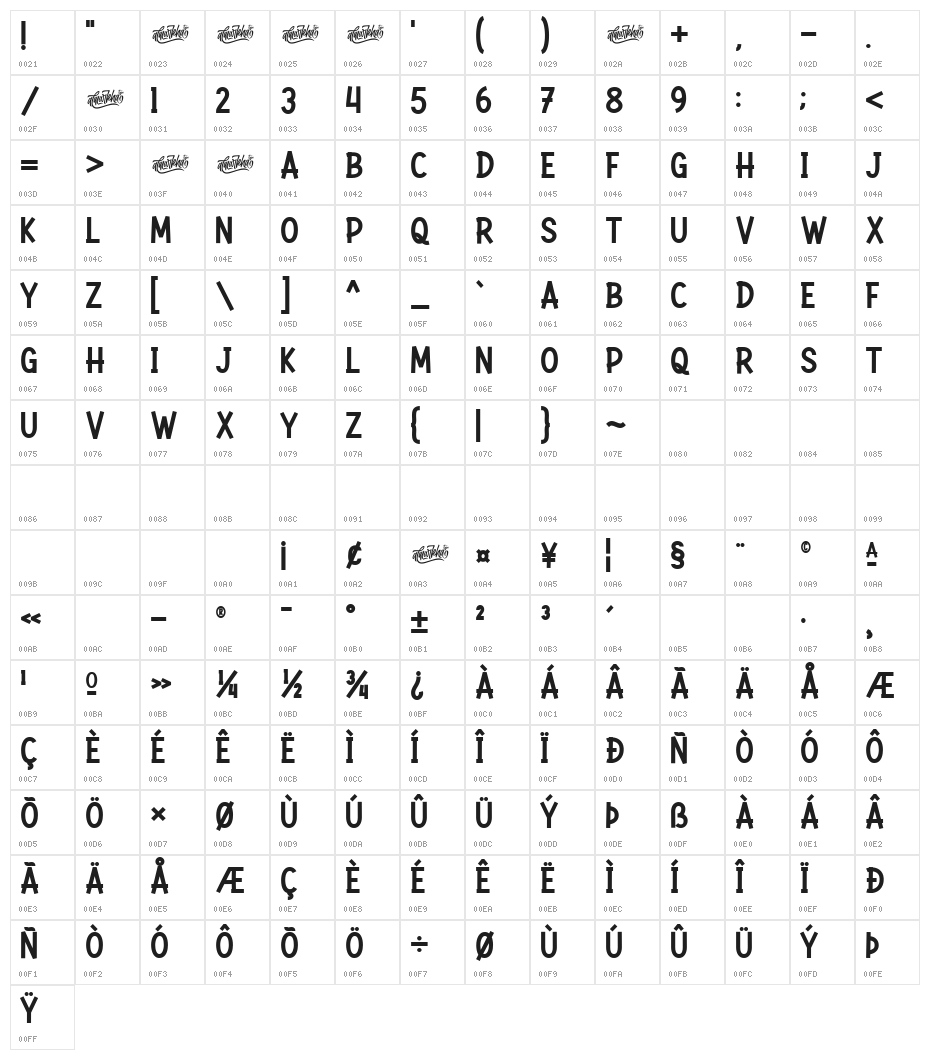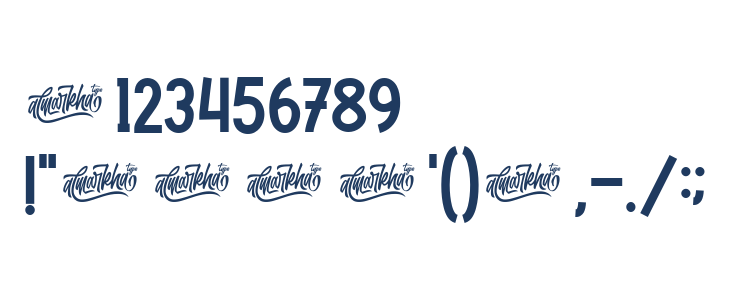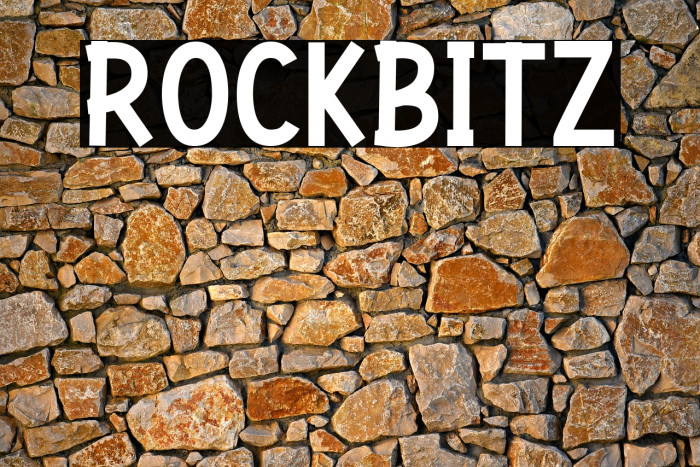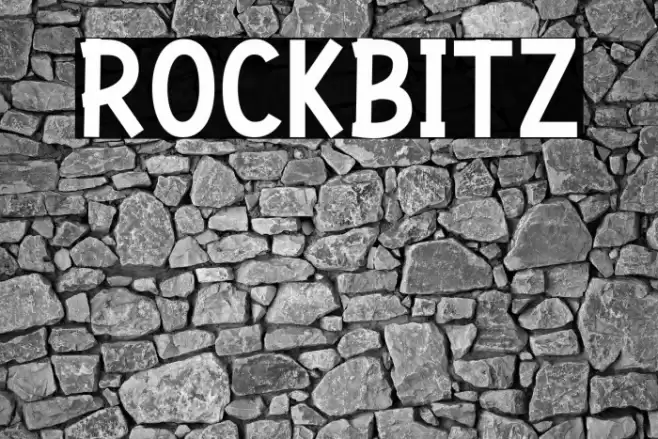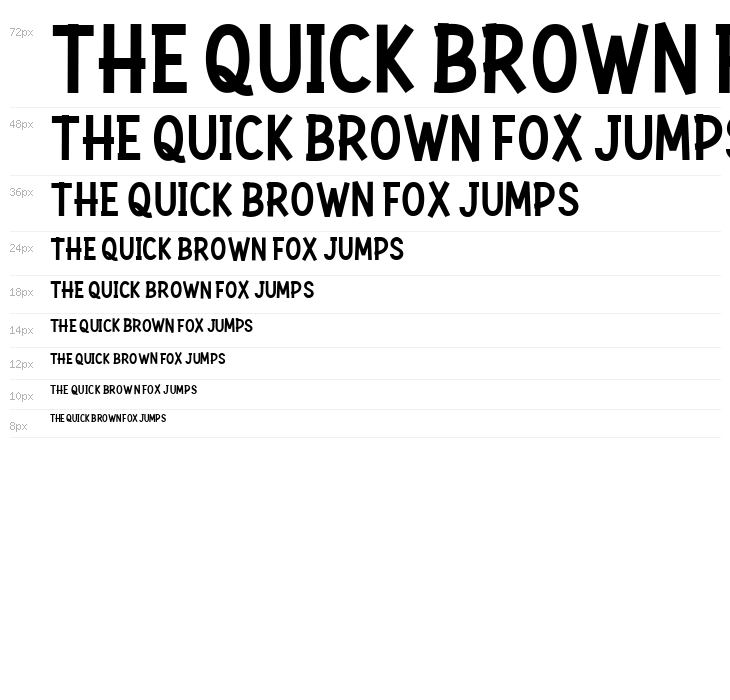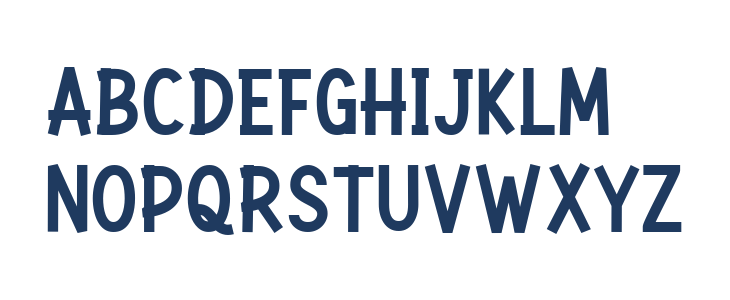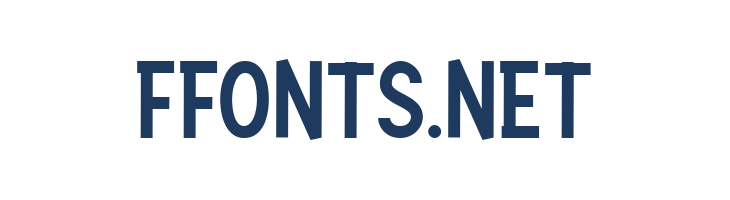
Rockbitz Font
Rockbitz Description
This font features a bold and robust design with a strong presence, characterized by thick strokes and a slightly condensed structure. The uppercase letters are uniform in height, providing a cohesive look, while the lowercase letters maintain a consistent style that complements the uppercase. The numerals are bold and clear, making them easily readable. Special characters are designed with the same boldness, ensuring they stand out. The overall style is modern with a touch of vintage flair, making it versatile for various design needs.
| Overall Style | Modern, Vintage |
| Proposed Projects | Ideal for branding, headlines, posters, and any project requiring a strong, impactful typeface. |